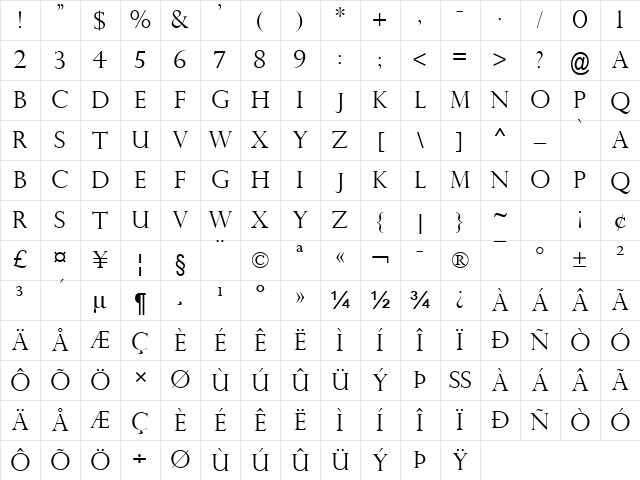
Complete Perpetua Titling MT Light glyph index. Displaying only characters natively supported by Perpetua Titling MT Light font.
Perpetua Titling MT is a composed and adaptable typeface that performs quietly and consistently across a wide range of design contexts. Its slender proportions lend an understated elegance to any composition.